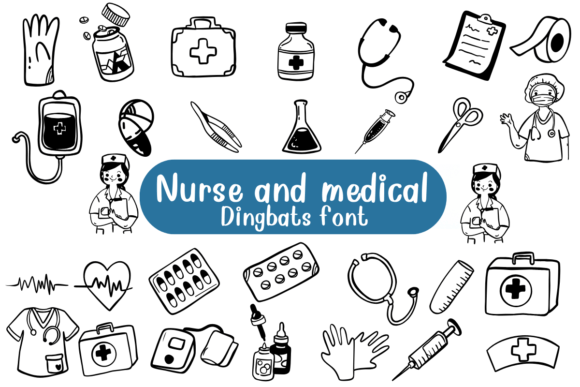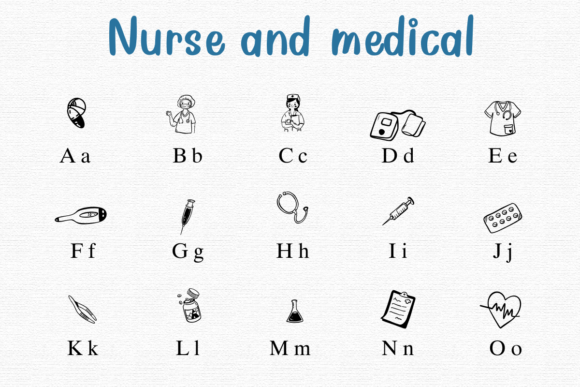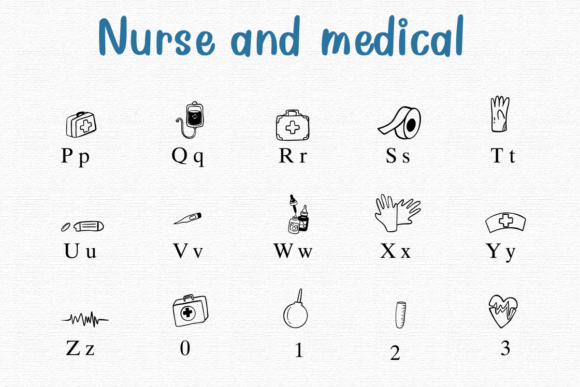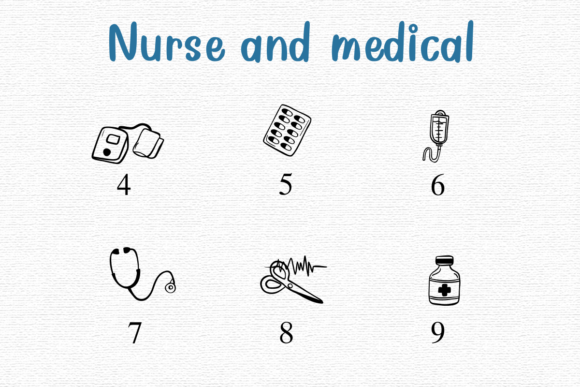
Nurse and Medical Font
About the Nurse and Medical Font
The Nurse and Medical Font offers a perfect balance of form and function for your design needs. Nurse and Medical Dingbat Font: A special type of font where each letter is designed as a small picture of nurses and medical items, like stethoscopes, bandages, and syringes. It’s a fun way to add healthcare-themed decorations to words and sentences.
This font’s playful nature makes it ideal for children’s healthcare materials, playful branding for clinics with a family focus, or short, impactful headlines on medical-themed posters or social media graphics. Avoid using it for body text or lengthy paragraphs; the illustrative nature of each character reduces readability at smaller sizes.
Its inherent friendliness pairs well with softer sans-serif fonts like Open Sans for body copy, creating a balanced contrast between the illustrative headline and readable text. For a more modern feel, consider pairing it with a geometric sans-serif such as Futura. Using a script font would likely clash with the font’s illustrative style.
The overall personality is cheerful and approachable, conveying a sense of care and approachability rather than seriousness or clinical precision. Therefore, it’s best suited for brands aiming for a friendly and approachable image.
Nurse and Medical Font Example